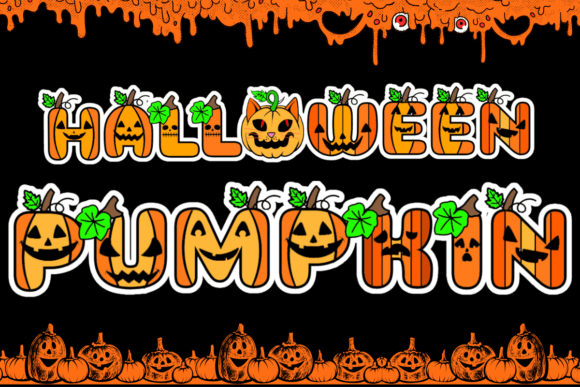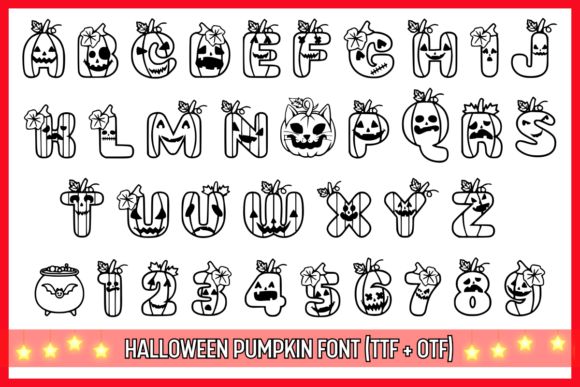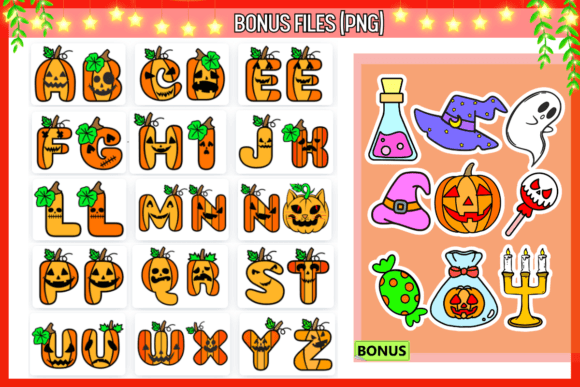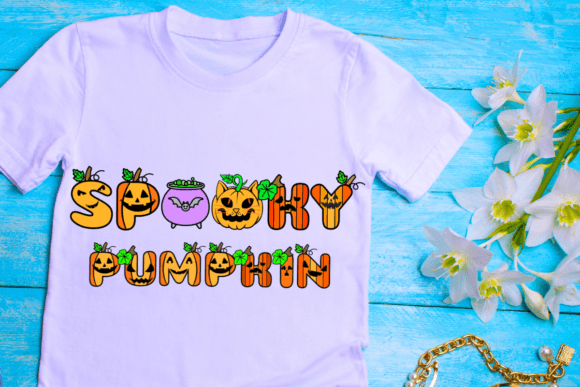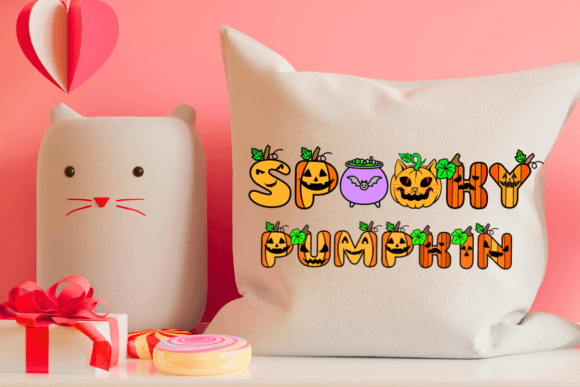
The Spooky Charm of Halloween Pumpkin Font
As a designer, I still remember the thrill of creating a spooky Halloween display for my front porch. The jack-o-lanterns, the cobwebs, and the creepy decorations all came together to create an eerie atmosphere that sent shivers down the spines of my neighbors. But what really made it stand out was the font I used to label the display – a fun and spooky font that looked like pumpkins with creepy eyes. It added a playful, scary feel to the text that made it impossible to ignore.
This is where the Halloween Pumpkin Font comes in – a perfect addition to any Halloween decoration. Its unique design is not only eye-catching but also adds a touch of whimsy to your designs. For designers, it’s a valuable asset that can elevate your Halloween-themed projects and make them stand out from the crowd. Whether you’re creating invitations, posters, or social media graphics, the Halloween Pumpkin Font is sure to bring a smile to your customers’ faces.
Halloween Pumpkin Font Key Features
- Unique Characteristic: The font features a unique, hand-drawn design with intricate details and textures, reminiscent of a carved pumpkin
Halloween Pumpkin Font Review
Overall, I found the Halloween Pumpkin Font to be a fun and playful addition to any spooky-themed design project. Here are some things that stood out to me:
- ✨ The font’s distressed, hand-carved aesthetic gives it a unique and quirky charm. It’s perfect for adding a touch of whimsy to posters, invitations, or other design elements.
- ✨ The font is highly customizable, with a wide range of sizes and styles available. This makes it easy to use in different contexts, from small text labels to large headings.
- ✨ The font is available in a variety of weights, including bold and light options. This gives designers a lot of flexibility when it comes to creating visual hierarchy and emphasis.
That being said, there are some limitations to the Halloween Pumpkin Font:
- ⚠️ The font may not be suitable for all types of design projects. Its playful, Halloween-themed aesthetic may not be the best fit for more serious or formal designs.
- ⚠️ The font’s distressed look can sometimes be distracting or hard to read, particularly in smaller sizes. Designers will need to use their judgment when using the font in different contexts.
- ⚠️ The font may not be as legible as other fonts, particularly in certain font sizes or styles.
Overall, I think the Halloween Pumpkin Font is a great addition to any designer’s toolkit. While it may have some limitations, its unique aesthetic and high level of customizability make it a great choice for the right project.
Halloween Pumpkin Font Practical Application Guide
The Halloween Pumpkin Font is perfect for creating spooky and festive designs for Halloween-themed parties, decorations, and advertisements. It can also be used to add a playful touch to invitations, social media posts, and other digital content.